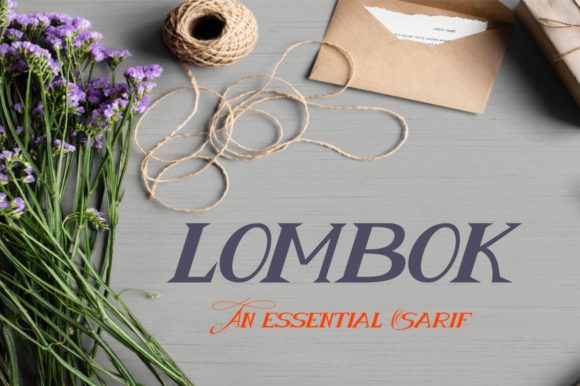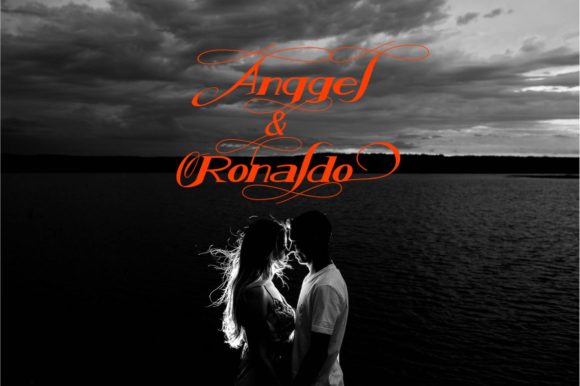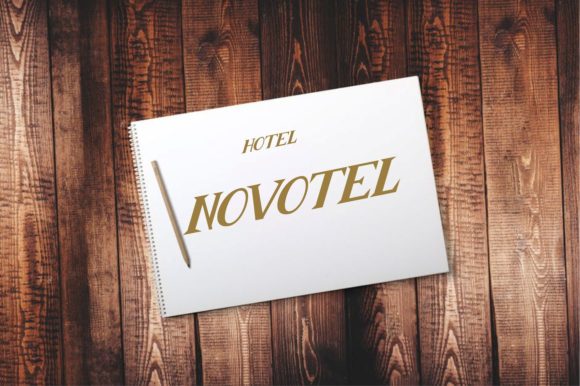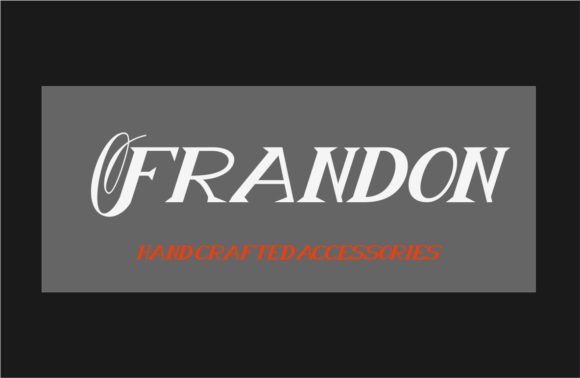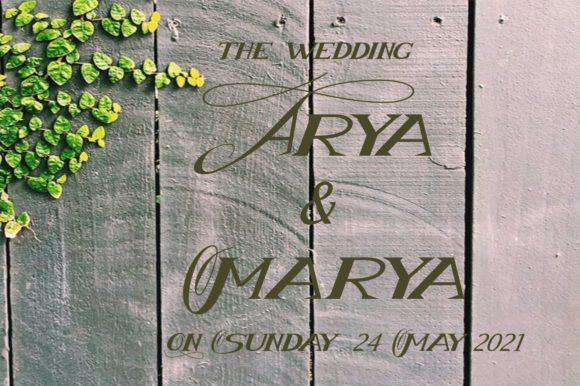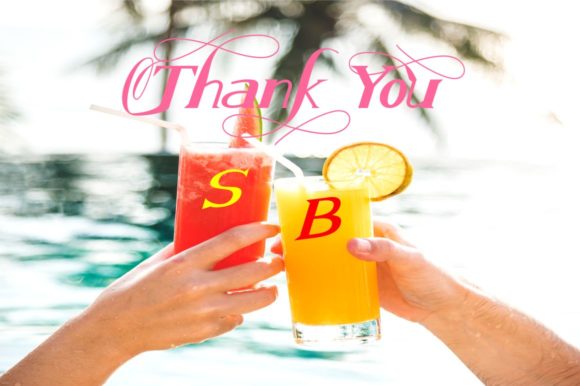
Sallsabila Font
About Sallsabila Font
Sallsabila is a new modern calligraphy font, perfect for conveying any message with simplicity, confidence and style.